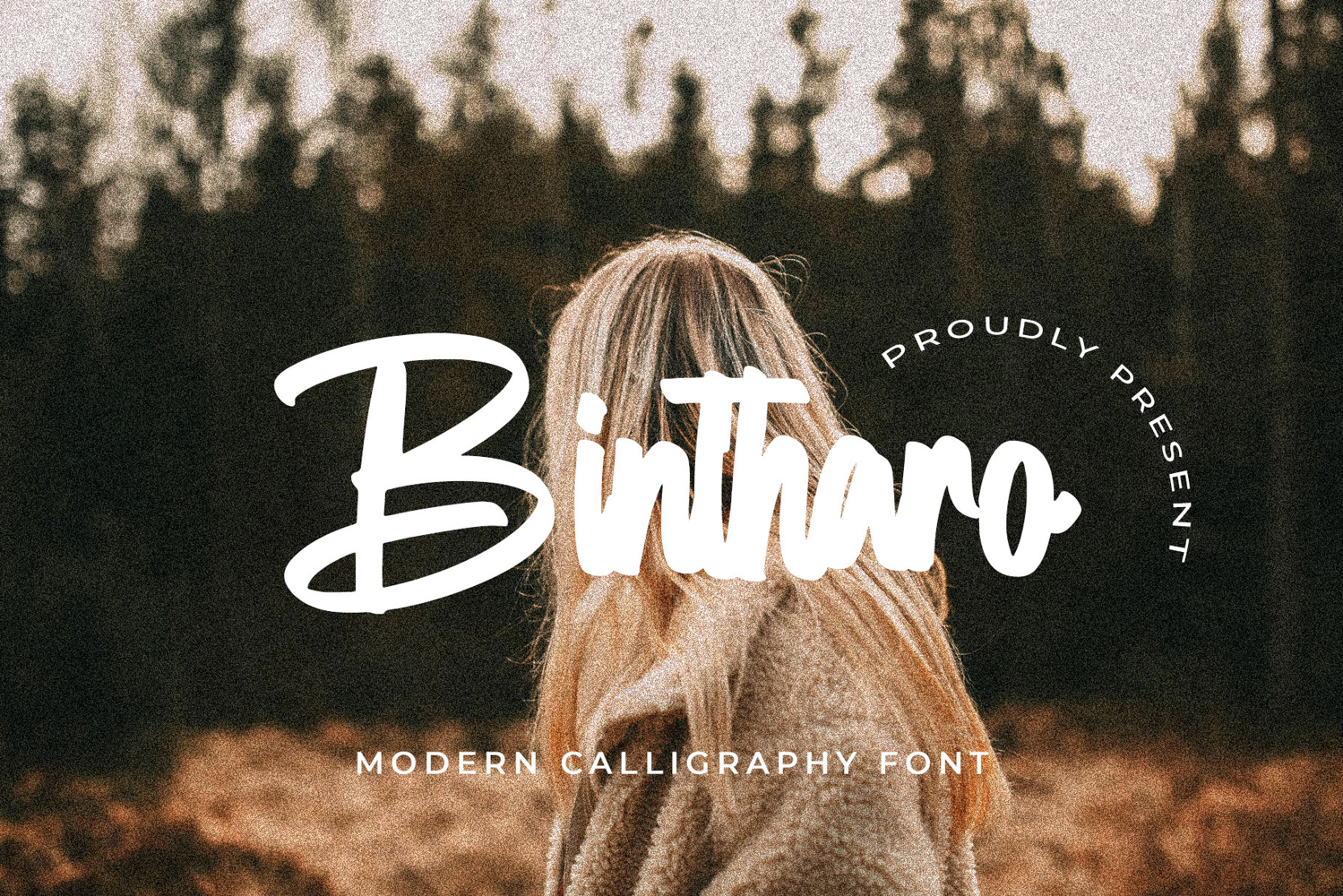
Bintharo
Bintharo font with new style, this font will perfect for many different project ex: quotes, logo, blog header, poster, banding, fashion, apparel, letter, invitation, stationery, etc...